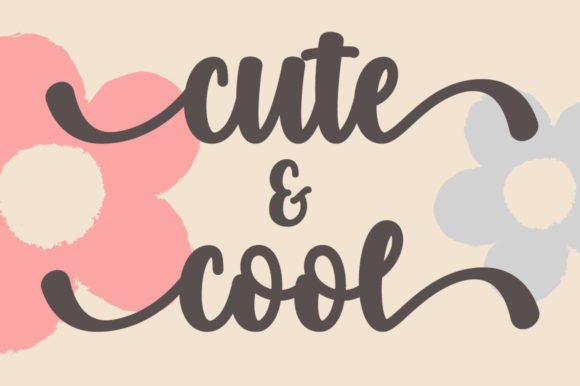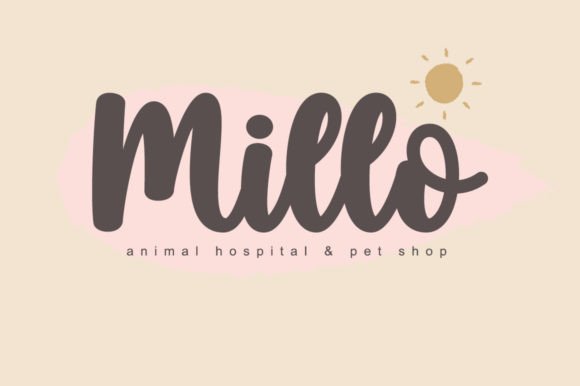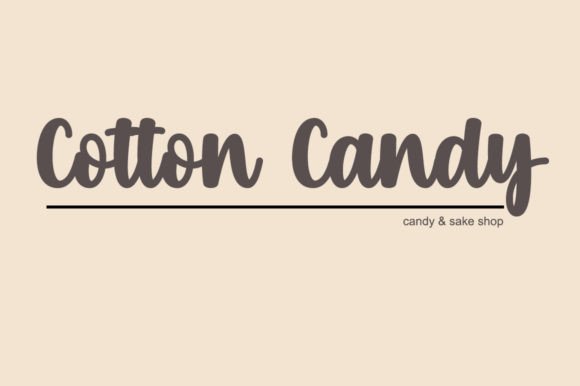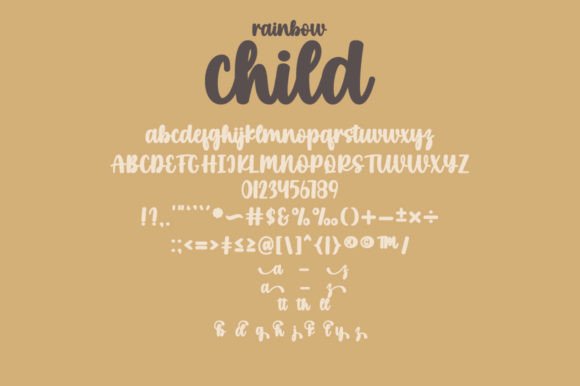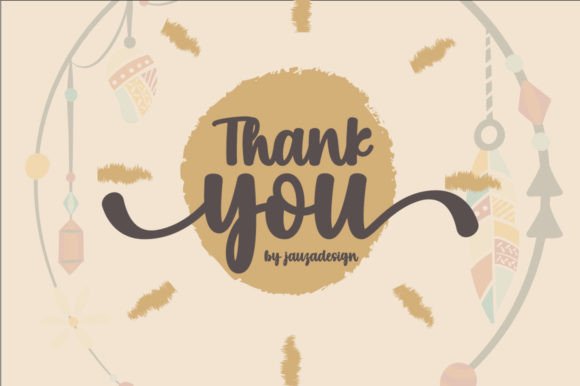
Introduction to Rainbow Child Font
Have you ever found yourself lost in the world of typography, searching for that perfect font to bring your creative project to life? I know I have. There’s something magical about discovering a font that not only matches your design vision but also adds a touch of personality to your work. For me, that moment came when I stumbled upon the Rainbow Child Font. This lovely script font is a game-changer, and I’m excited to share its story with you.
As a designer, I can attest that finding high-quality design resources like the Rainbow Child Font is invaluable. Not only does it save time, but it also opens up endless possibilities for creative expression. With its delicate and versatile nature, this font is perfect for any project that requires a touch of elegance and whimsy.
Key Features of Rainbow Child Font
- Unique, playful design with a transparent background for easy layering
- Perfect for use in children’s educational materials, party invitations, and other creative projects
- Comes with a range of glyphs and characters, including uppercase and lowercase letters, numbers, and symbols
- Easy to customize and edit for a personalized look and feel
Honest Review: Rainbow Child Font
I recently stumbled upon the Rainbow Child Font while searching for a design resource to elevate my creative project. This font is truly a gem, and I’m excited to share my thoughts with you.
- ✨ The high quality of the font is evident in its crisp, clean lines and vibrant colors.
- ✨ The transparent background makes it easy to work with, and the font can be layered with other design elements seamlessly.
- ✨ The font’s playful, whimsical style is perfect for children’s books, party invitations, and other creative projects that require a touch of magic.
- ⚠️ The font is only available in a limited range of colors, which may limit its versatility for some designers.
- ⚠️ The font is not suitable for formal or professional designs, as its playful style may come across as too casual.
Overall, I’m thoroughly impressed with the Rainbow Child Font. While it may have some limitations, its unique style and high quality make it a fantastic addition to any designer’s toolkit. If you’re working on a creative project that requires a touch of magic, I highly recommend giving this font a try!
Tips for Getting the Most Out of the Rainbow Child Font
Experiment with different font sizes and styles to create visual interest. Use the font’s transparent background feature to layer text and graphics. Combine the Rainbow Child Font with other design elements to create a unique and eye-catching design.
The Rainbow Child Font is perfect for creative projects such as invitations, posters, and social media graphics. It’s also great for presentations, documents, and websites that require a playful and whimsical touch.